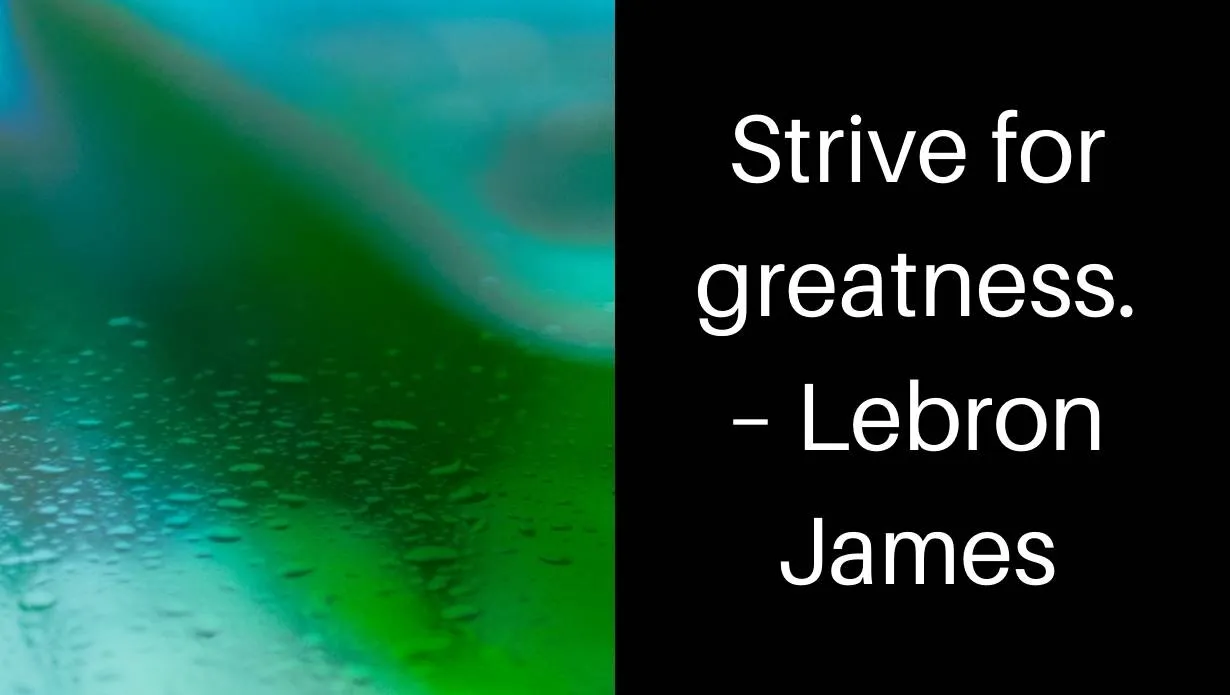
Aller Font was developed and published by Dalton Maag. This stunning typeface belongs to the Sans Serif typeface. It is available in five weights which you can use according to your requirements.
This amazing font consists of unique features such as a small x-height, long ascenders, and descenders. You can use this amazing font for both digital and print projects.
Aller Font Family
This typeface has another similar sans serif that is a maven pro font. Its copy and paste function is perfect for many text designs.